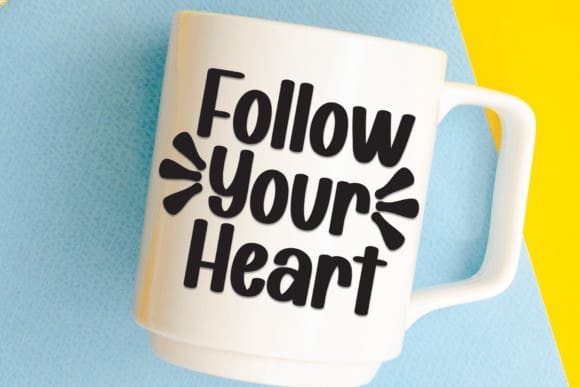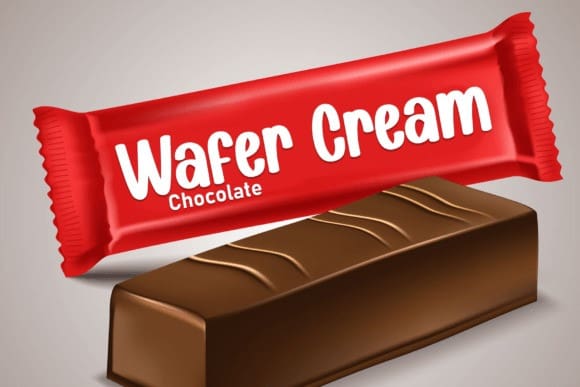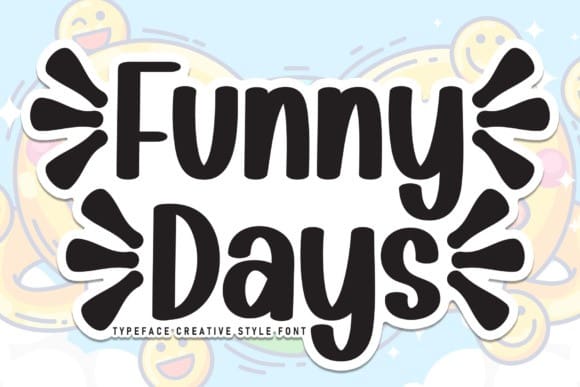
Funny Days Font
Funny Days Font is a gorgeous and bold handwritten font, crafted to give your headlines and logotype projects a stylish touch. This font reads as strong, confident, and dynamic and can add tons of nostalgic character to your designs.